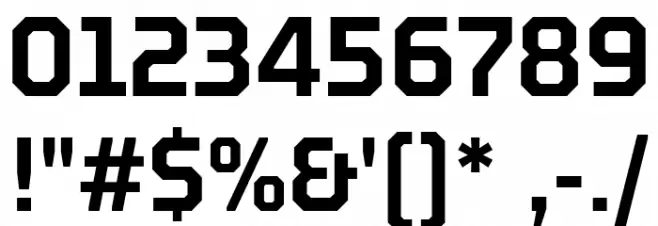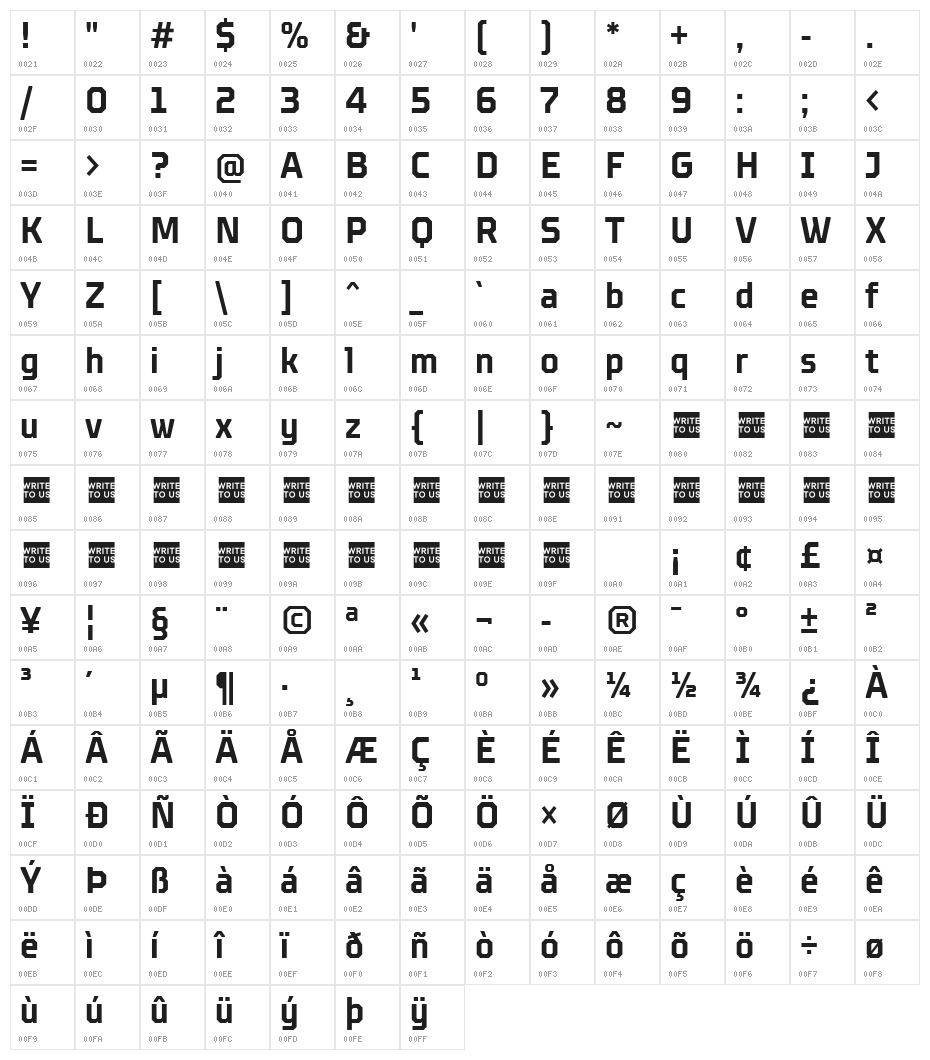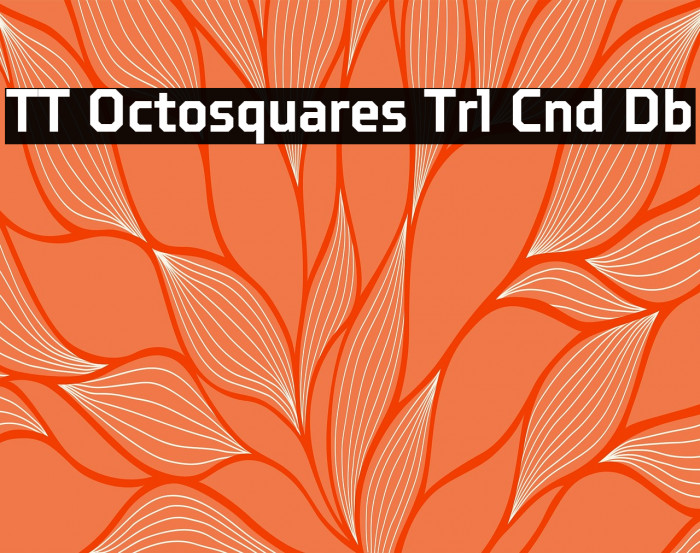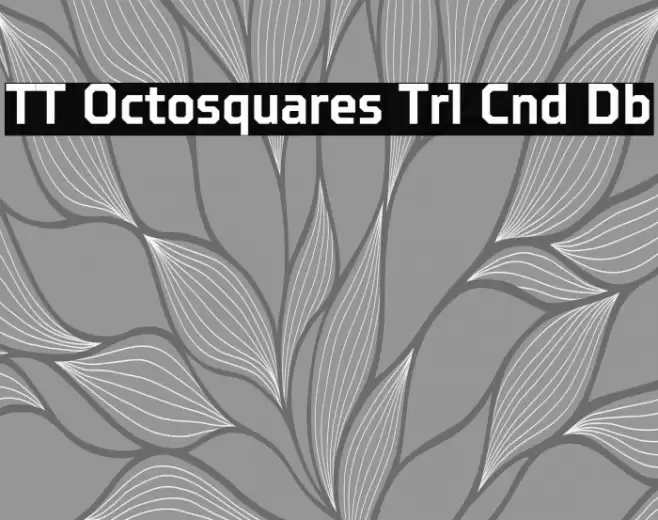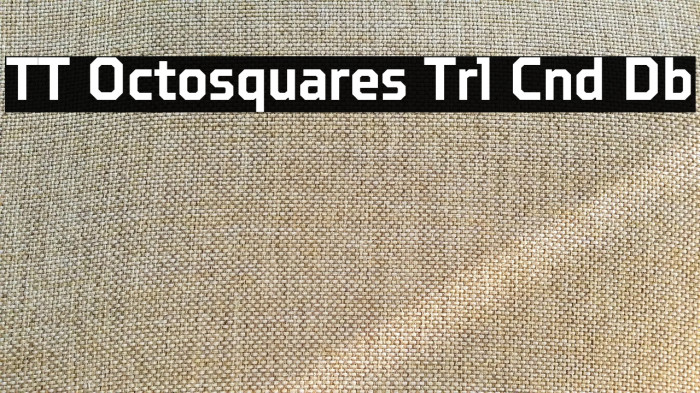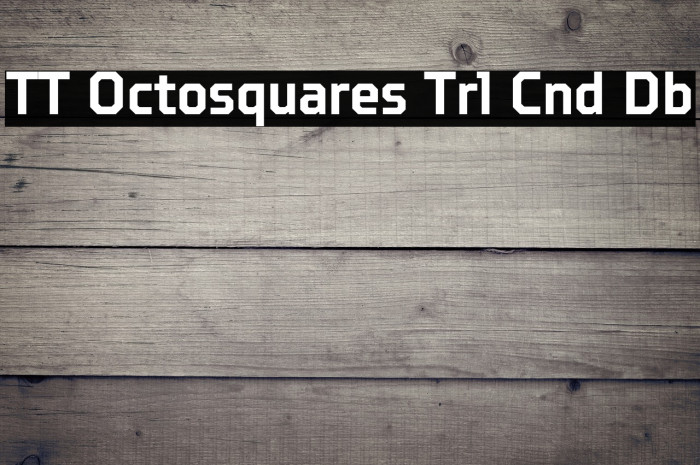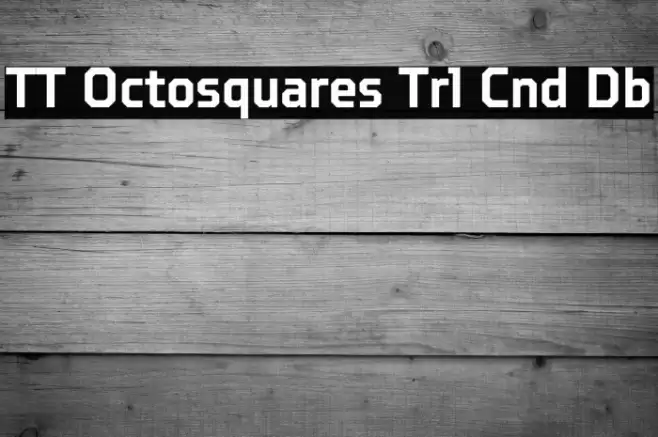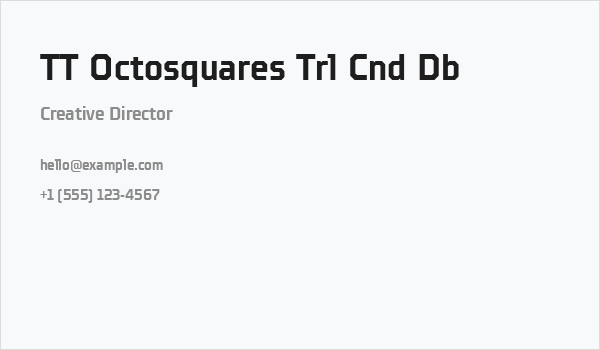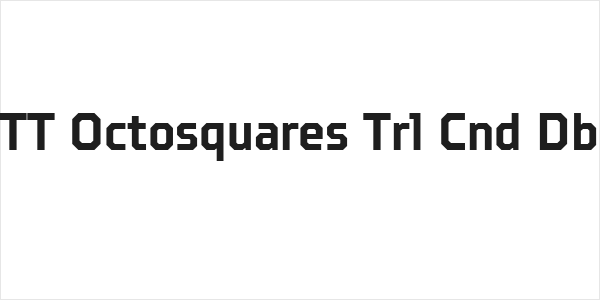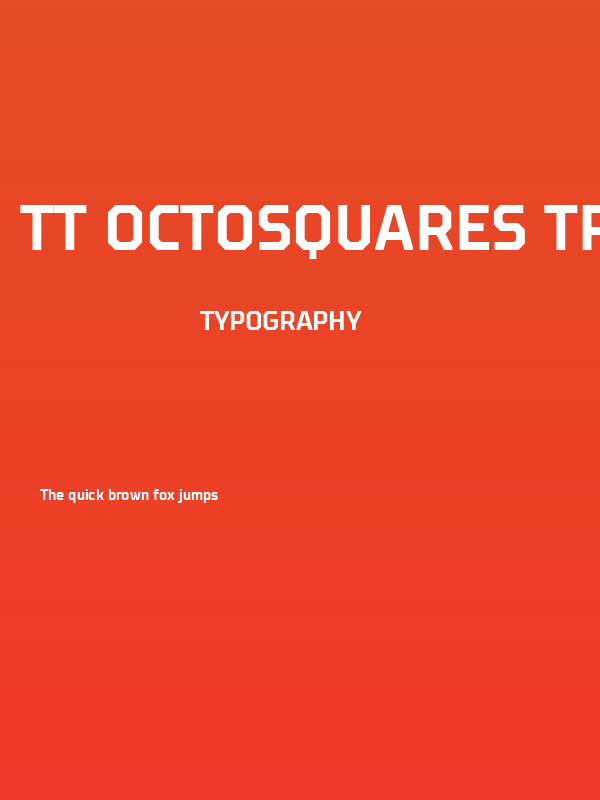
TT Octosquares Trl Cnd Db Font
TT Octosquares Trl Cnd Db Description
This font features a geometric and structured design, characterized by its bold and angular letterforms. The characters are constructed with a consistent thickness, giving the font a uniform and cohesive appearance. The edges are sharp and precise, contributing to a modern and futuristic aesthetic. The font maintains clarity and readability, making it suitable for various applications. Its condensed form allows for efficient use of space, while the distinct shapes of each letter ensure legibility even at smaller sizes. The overall style is clean and minimalistic, with a strong emphasis on geometric shapes.
| Use Case | Headlines, Logos, Digital interfaces |
| Proposed Projects | Ideal for technology branding, modern posters, and digital interfaces. |